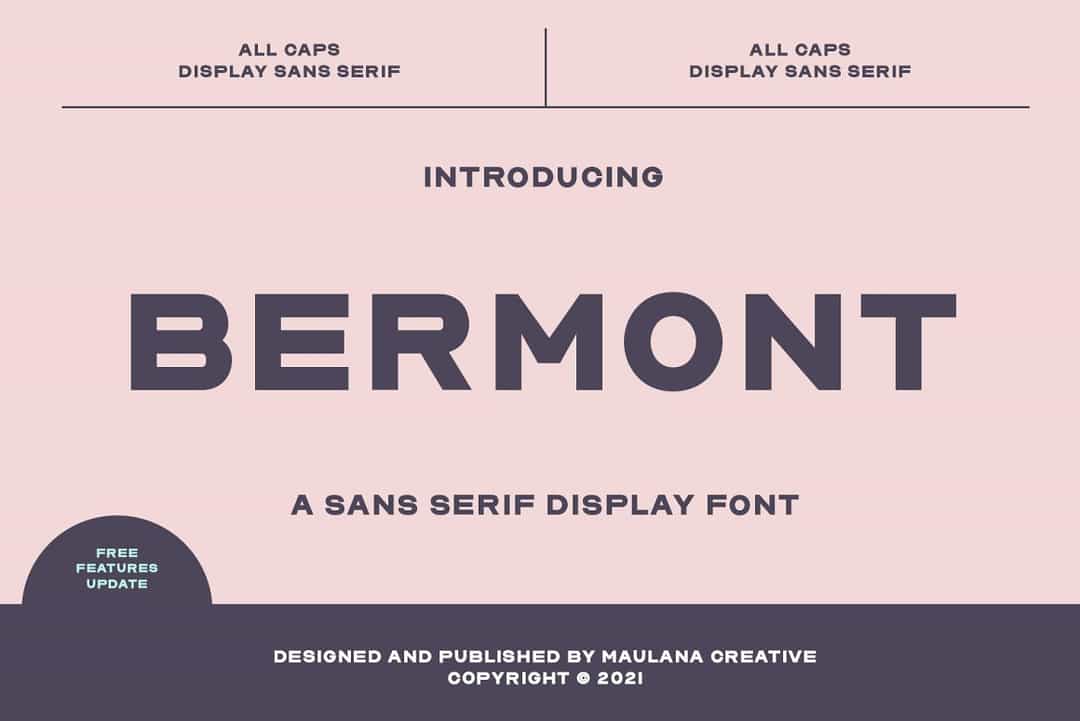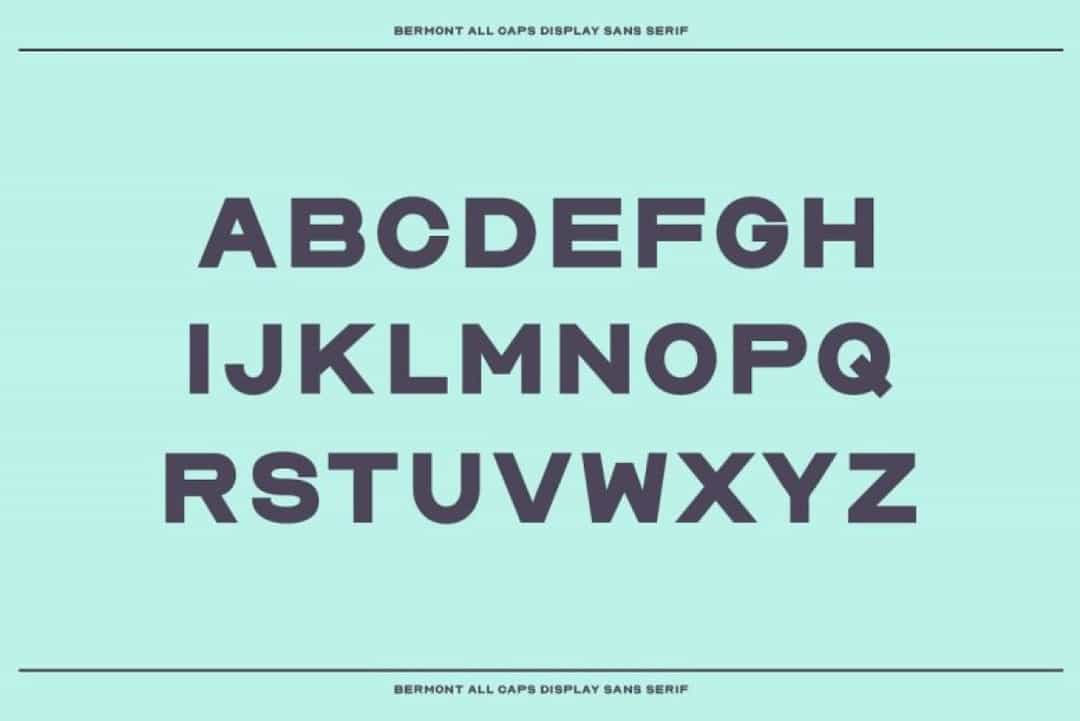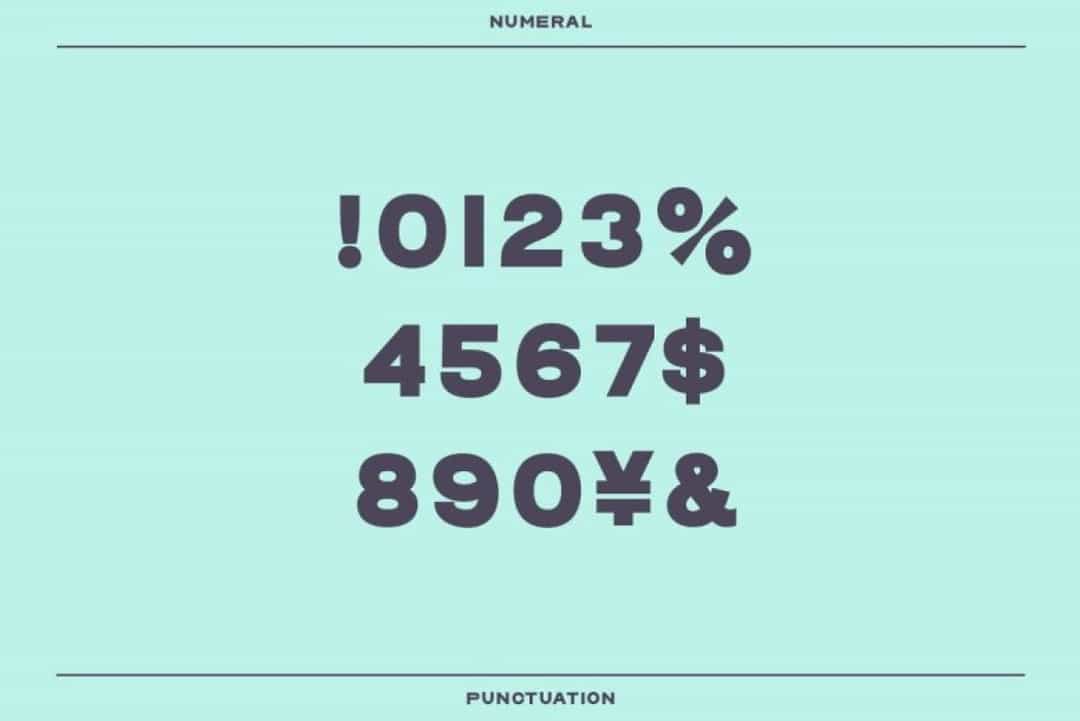
Bermont can be described as an all capitals display font with no serifs, featuring strong weight and distinctive, fun design characteristics, plus some ligatures to enable more creative work. Supporting over 100 languages.